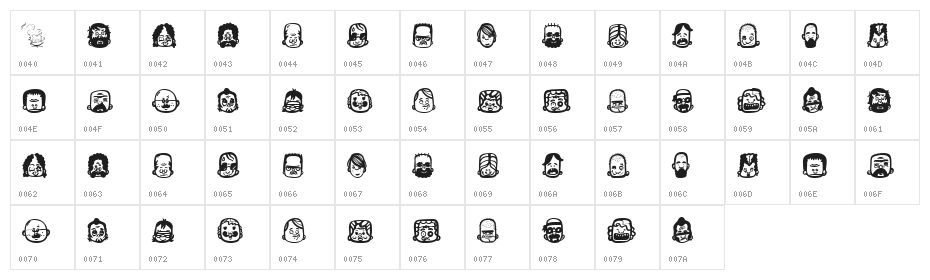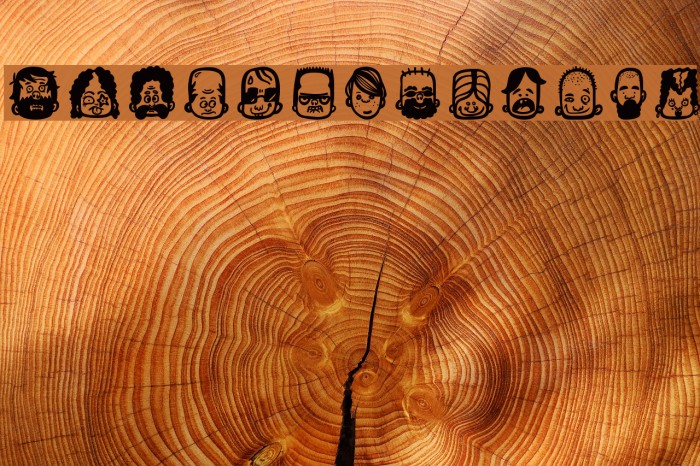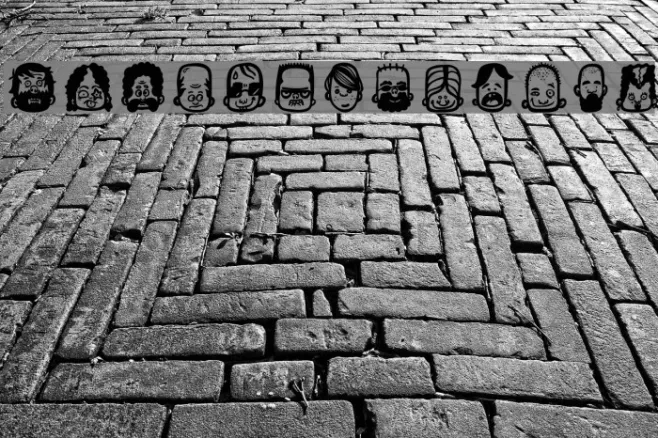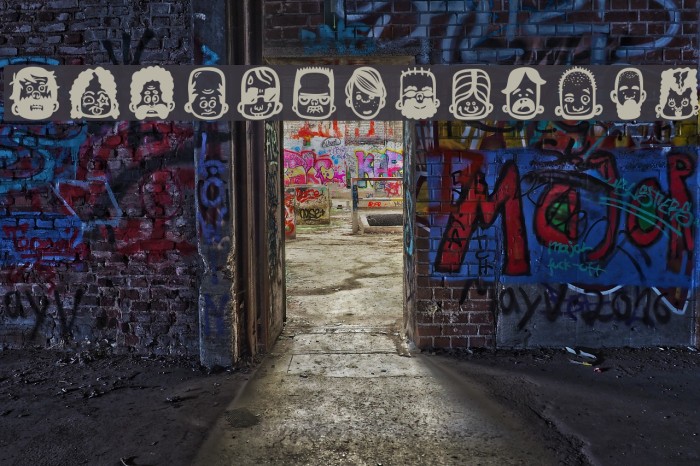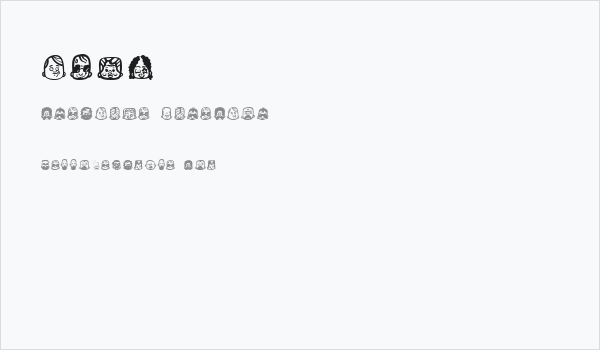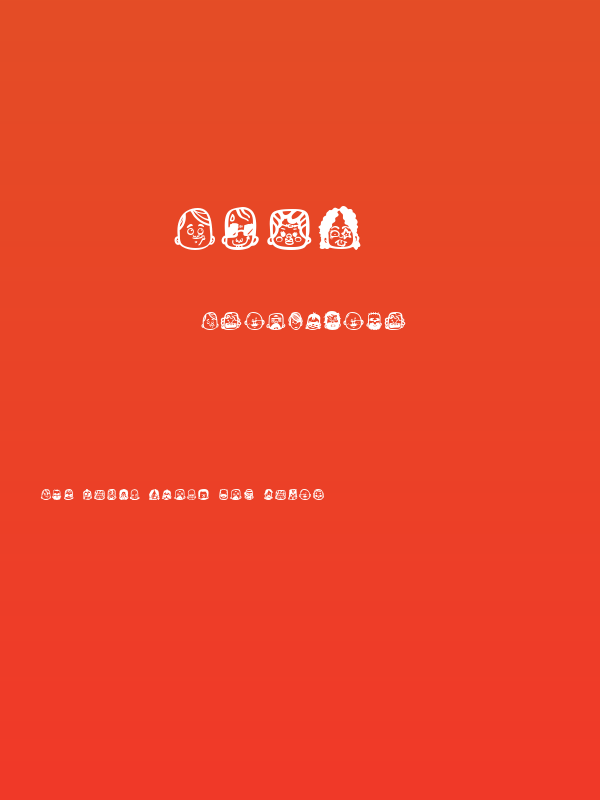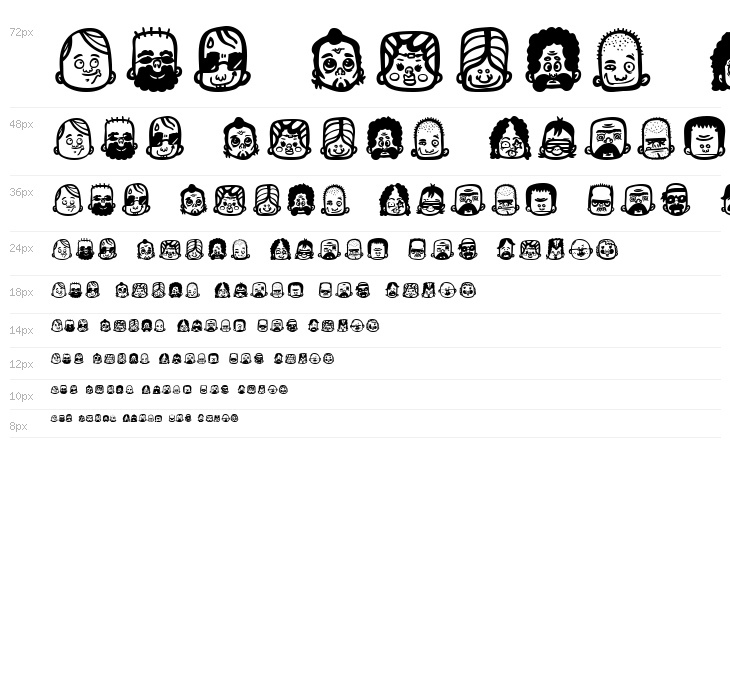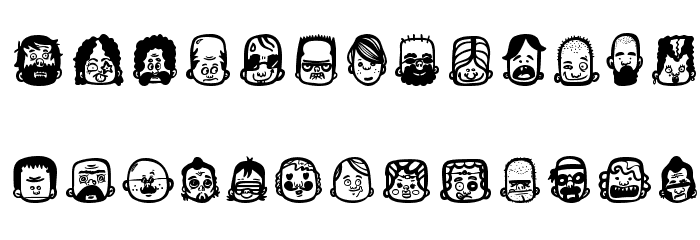
teubé3 Font
teubé3 Description
A highly decorative and playful font where each character is represented by a unique cartoonish face illustration, featuring exaggerated expressions and varied hairstyles, making each glyph distinct and whimsical.
| Overall Style | Decorative, Whimsical, Playful |
| Use Case | Logos, Posters, Headlines, Children’s materials |
| Proposed Projects | Children’s books, party invitations, comic strips, playful branding, posters, novelty merchandise. |